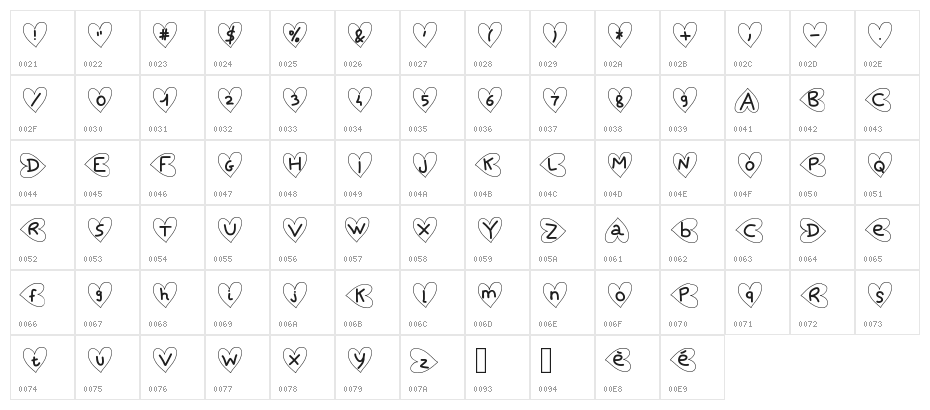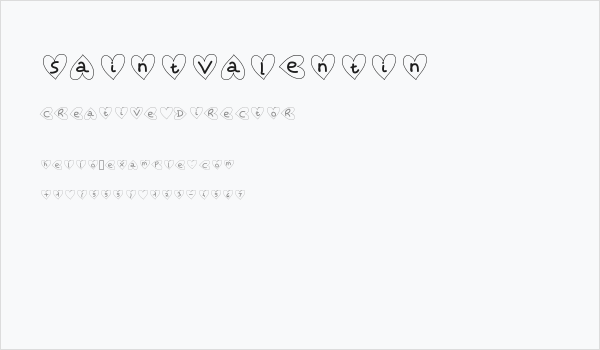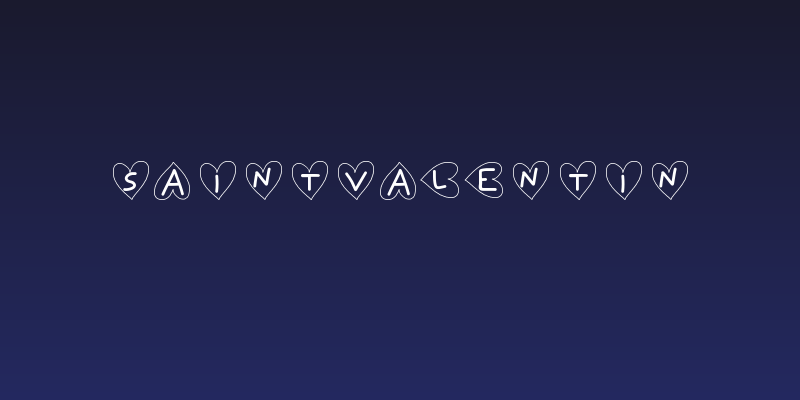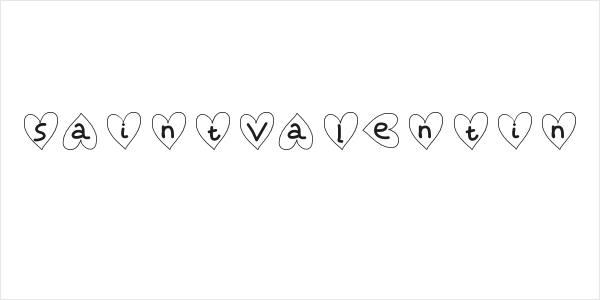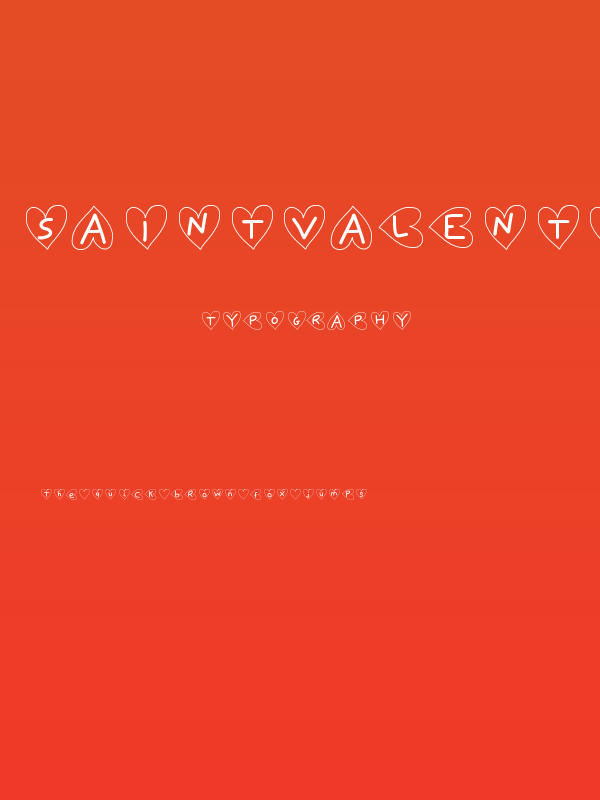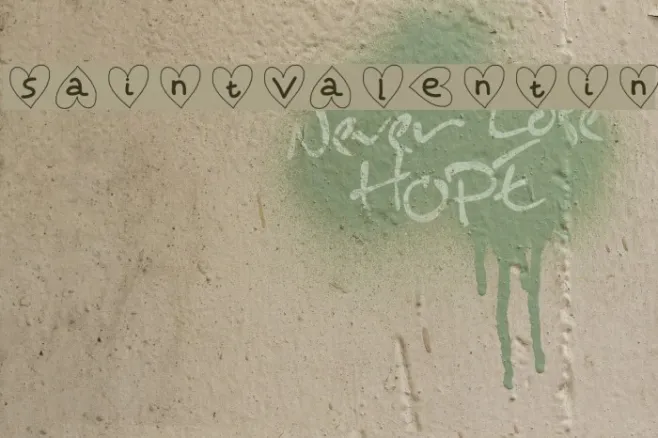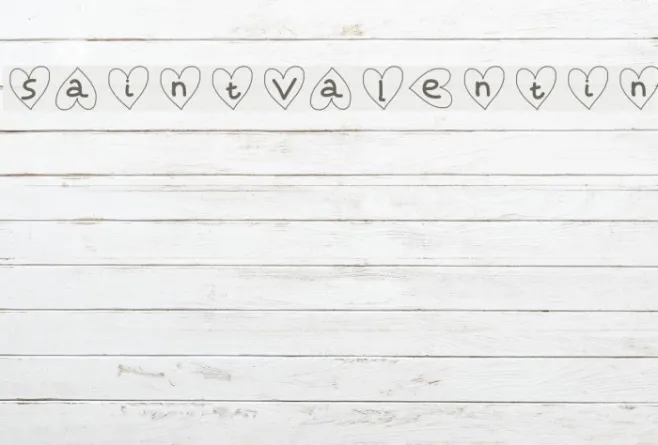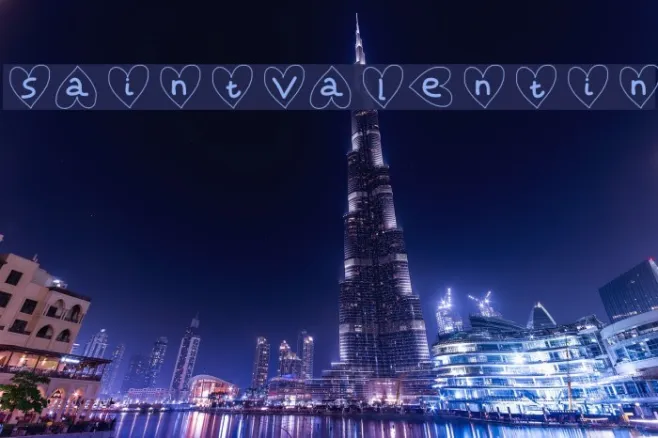
SaintValentin Font
SaintValentin Description
This playful and romantic font features each character enclosed within a heart shape, creating a whimsical and affectionate aesthetic. The letters are bold and rounded, with a consistent stroke width that maintains readability while emphasizing the decorative heart motif. The font includes both uppercase and lowercase letters, numerals, and a selection of special characters, all maintaining the heart-themed design. The overall style is charming and suitable for conveying love and warmth, making it ideal for themed projects.
| Proposed Projects | Perfect for Valentine's Day cards, wedding invitations, romantic event posters, and love-themed branding. |